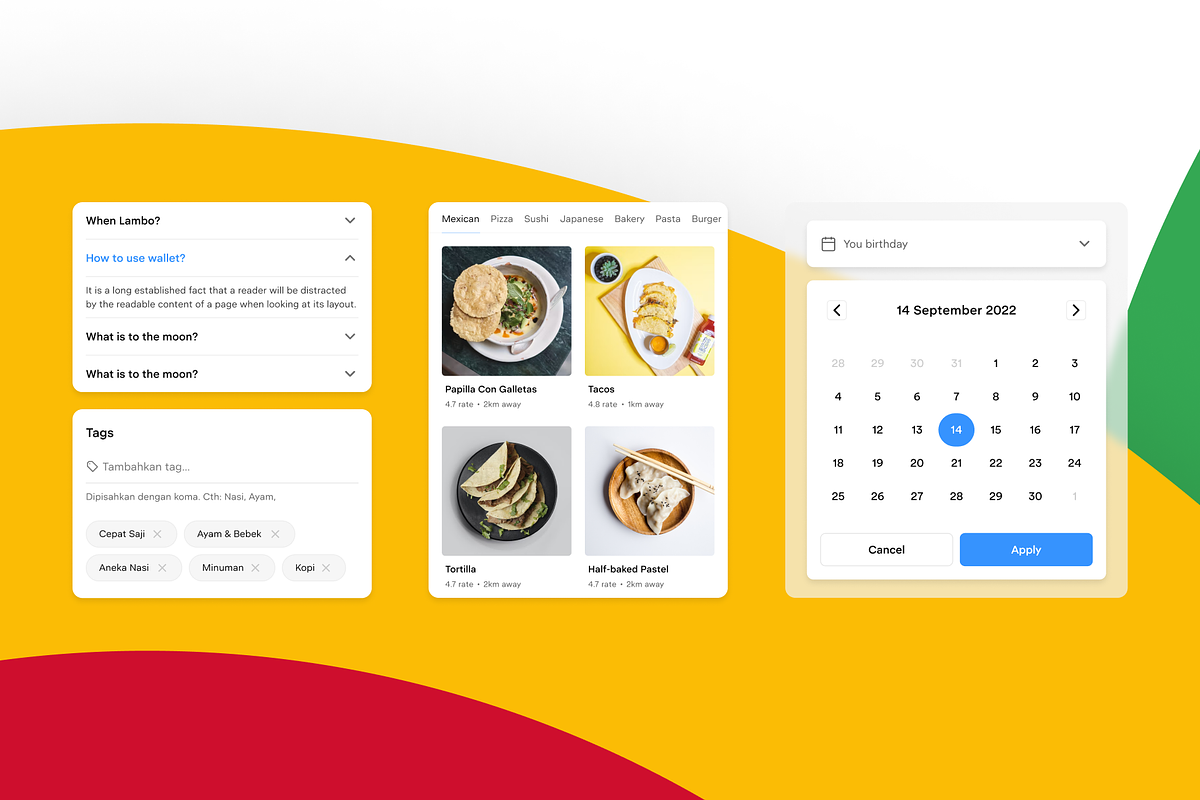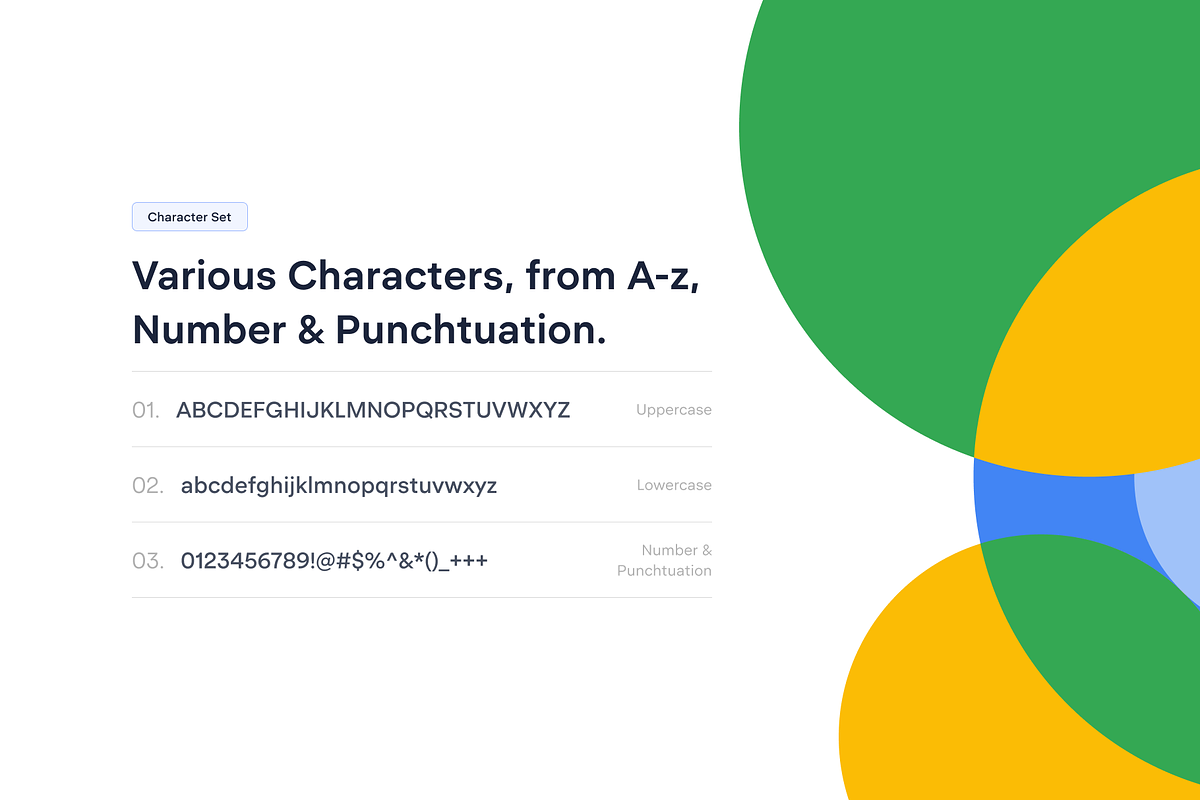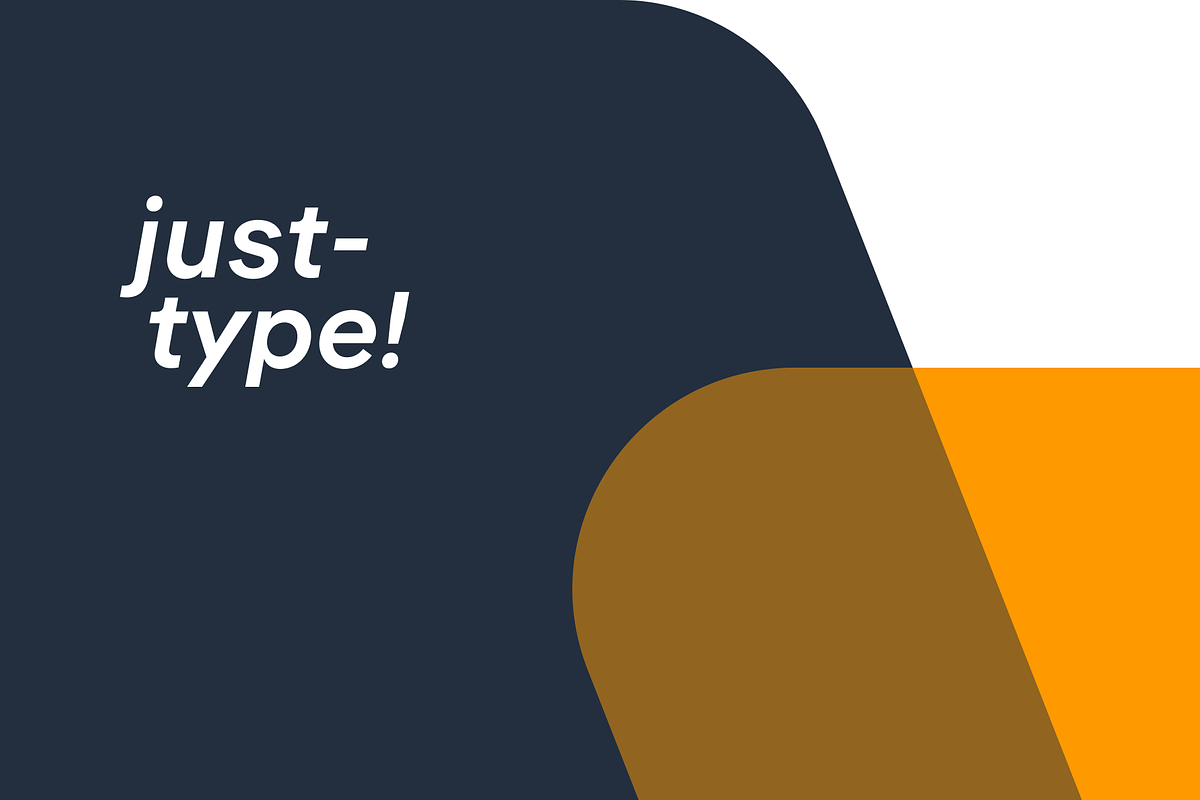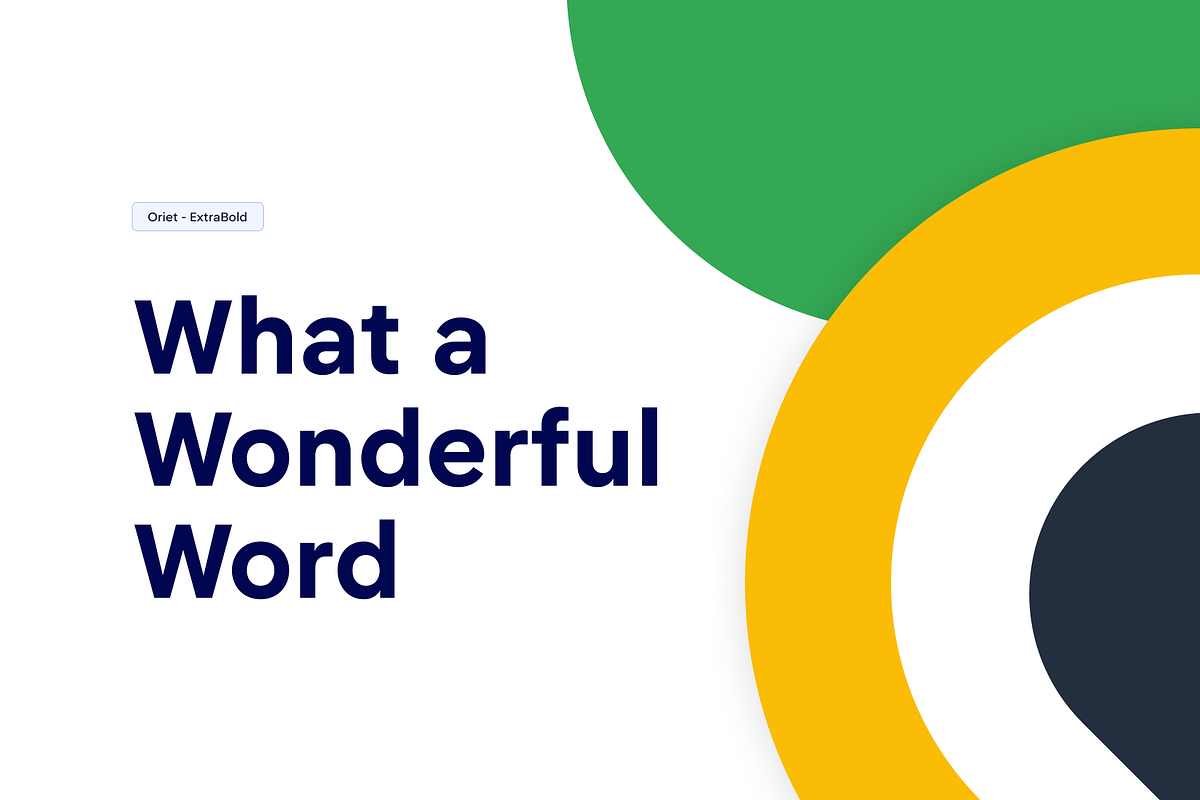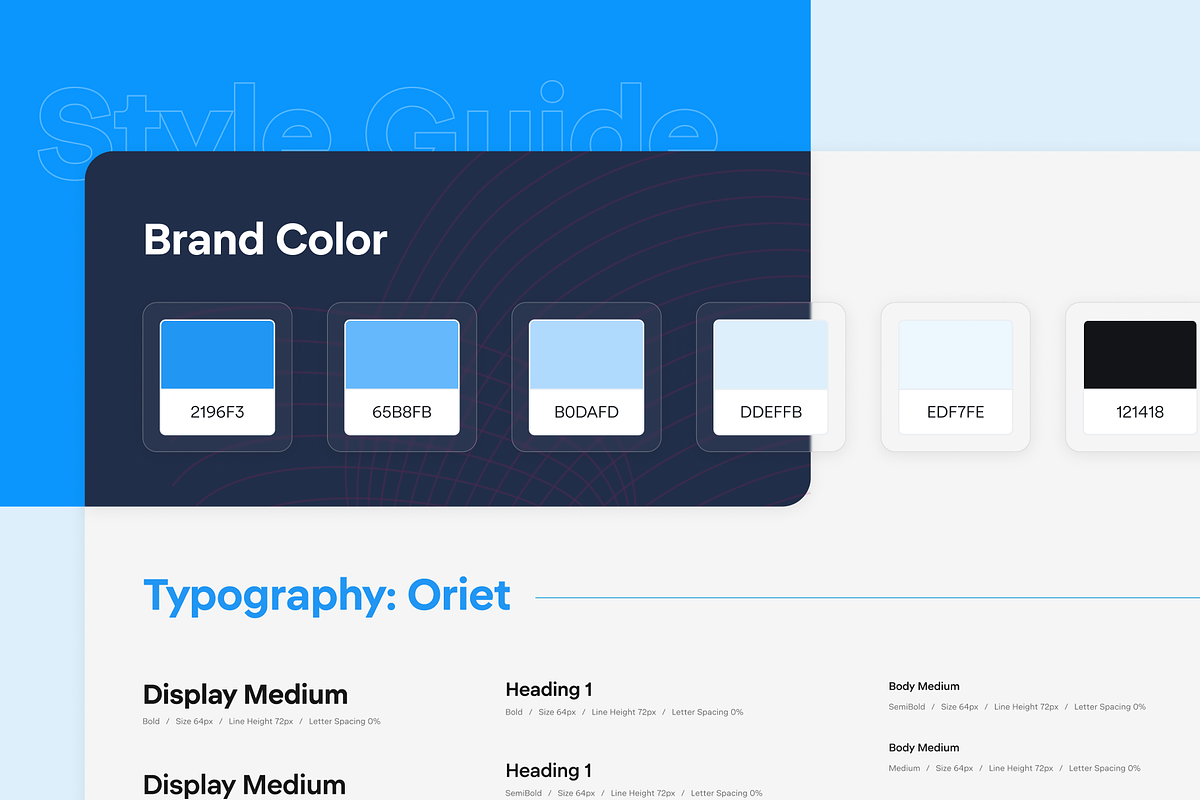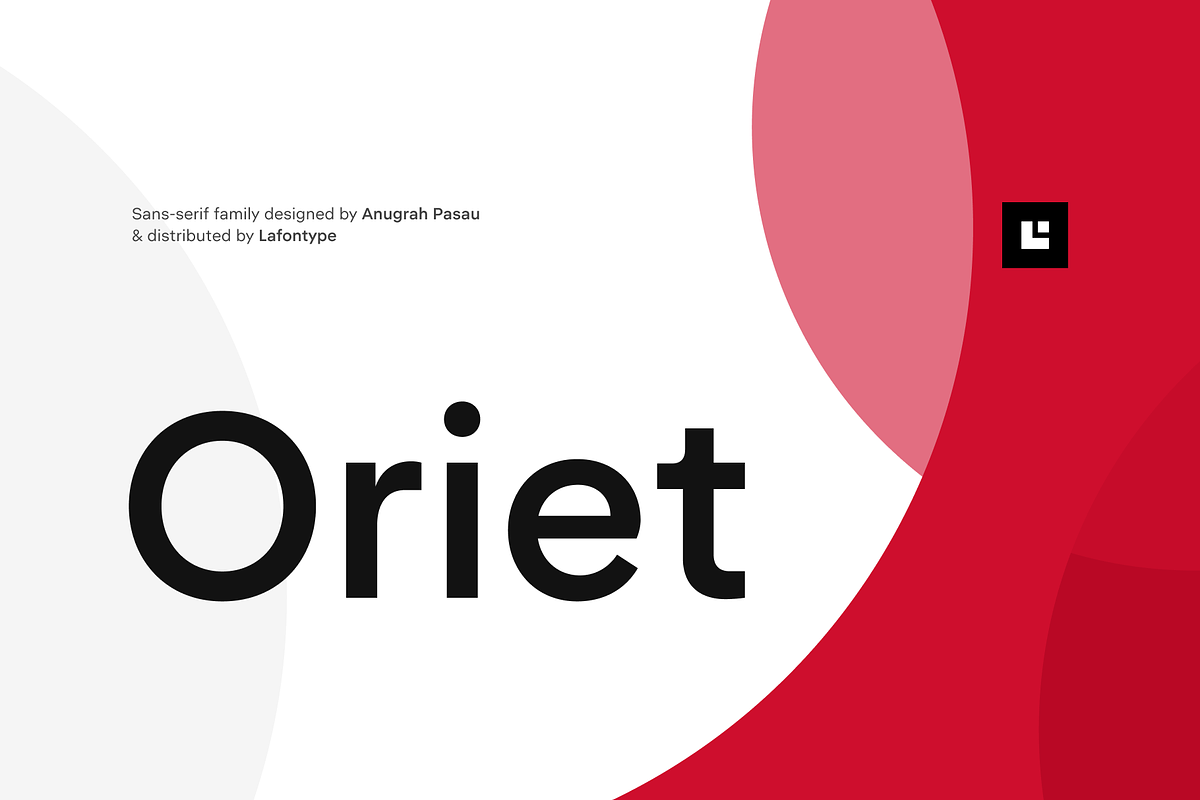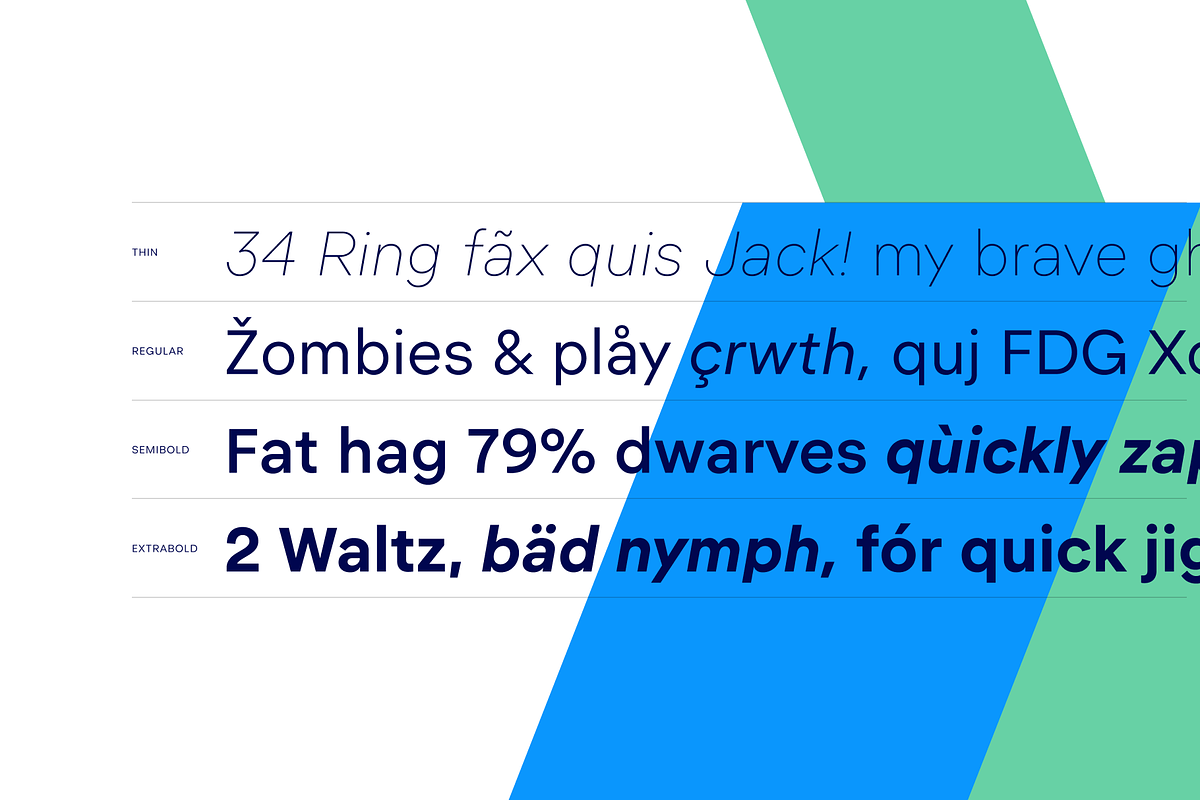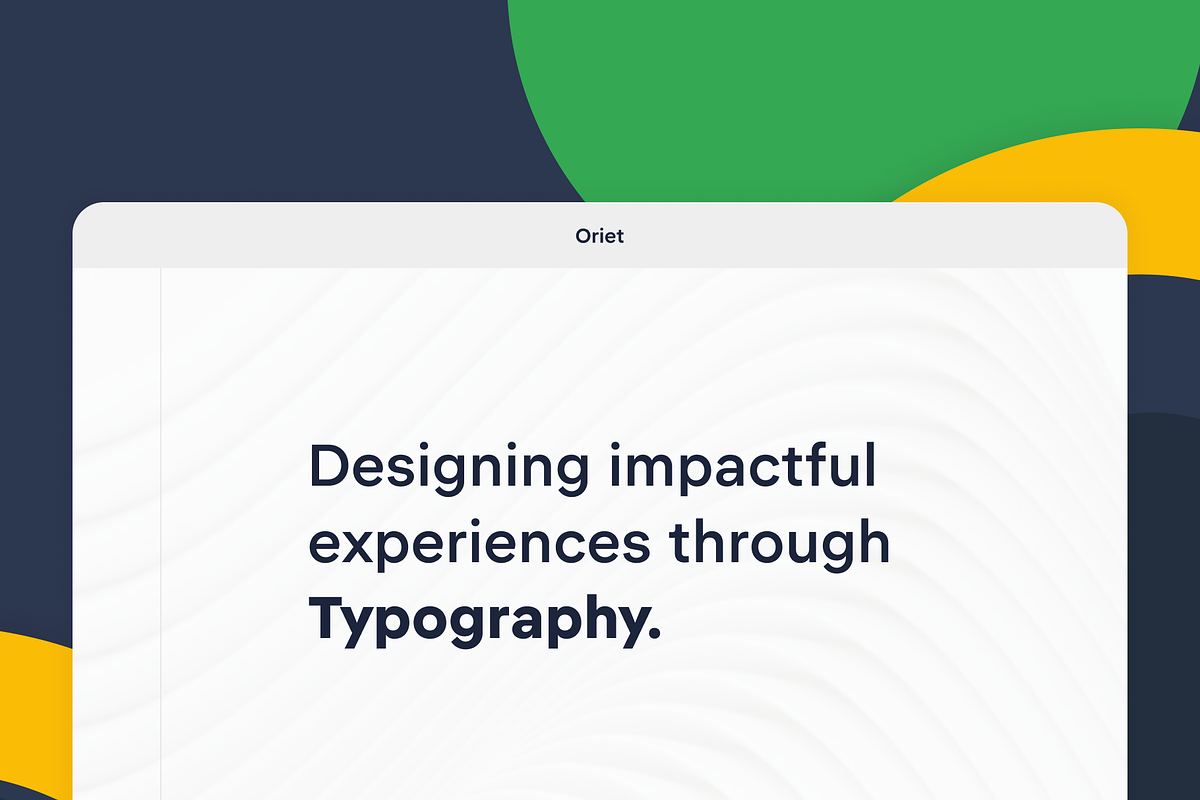
Oriet
Oriet is a modern sans-serif typeface that artistically blends geometric precision with humanist touches, creating a versatile and timeless font family. With a comprehensive range of 16 styles, including 8 different weights from Thin to Black, along with matching italics, Oriet offers a complete typographic solution for a wide variety of design needs.
Created with a spirit of neutrality, Oriet excels in its ability to seamlessly integrate into diverse contexts, whether in editorial layouts, branding projects, corporate communications, or digital interfaces. Its clean lines and balanced proportions convey a sense of clarity and professionalism, making it ideal for both body text and headlines.
Oriet is designed with an innovative approach to text hierarchy. Each weight features varying x-heights in its lowercase characters, creating a dynamic typographic structure that naturally enhances readability and allows for creative expression within the bounds of uniformity.
Crafted to capture the essence of neutrality and elegance, it is the perfect choice for designers seeking flexibility and character. Whether used in print or digital media, Oriet maintains its distinctive visual identity, effortlessly adapting to project needs while retaining its elegance.